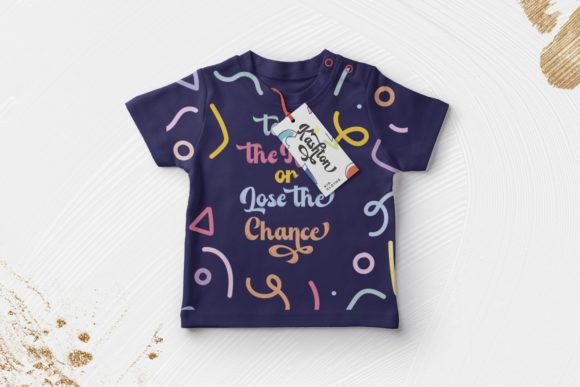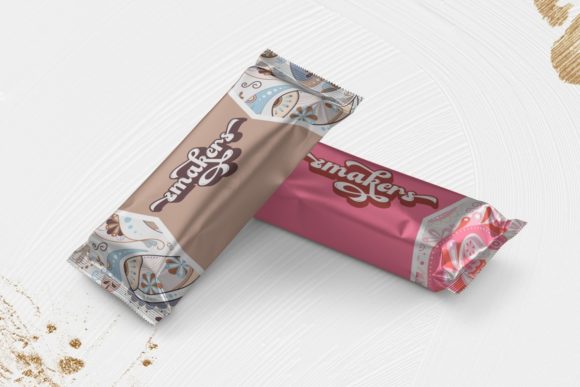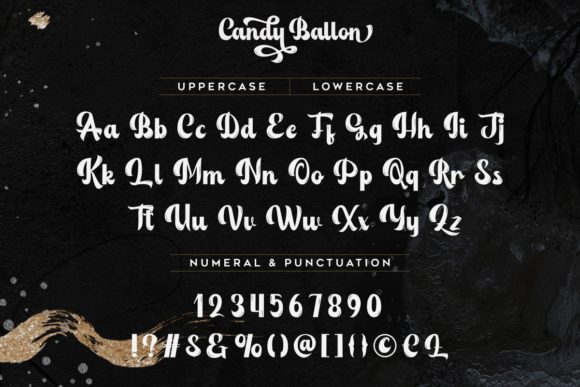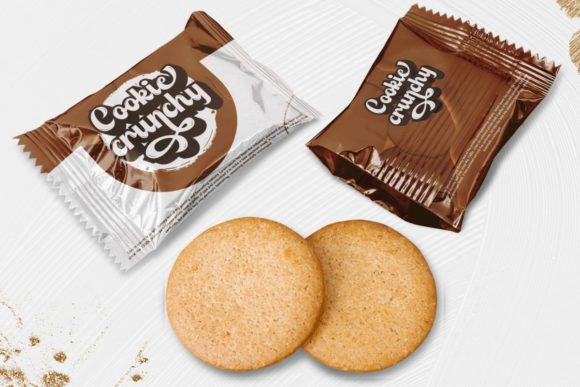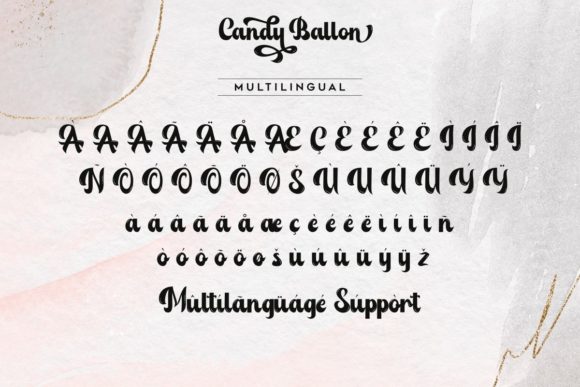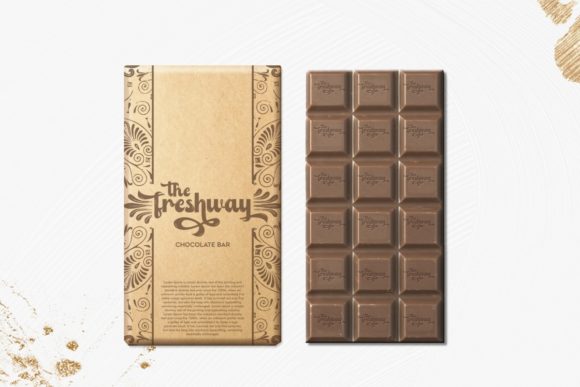
Candy Ballon Font: Elevate Your Designs with a Stylish and Unique Handwritten Font
Are you tired of using the same old fonts in your designs? Do you want to add a touch of elegance and whimsy to your projects? Look no further than the Candy Ballon Font, a stylish, distinct, and uniquely designed handwritten font that’s sure to take your designs to the next level.
What Makes Candy Ballon Font So Special?
Candy Ballon Font is a one-of-a-kind handwritten font that’s been carefully crafted to provide a fresh and exciting alternative to traditional fonts. Its unique design features flowing lines, intricate swashes, and a playful charm that’s sure to capture the attention of your audience.
One of the standout features of Candy Ballon Font is its PUA (Private Use Area) encoding. This means that you can access all of the glyphs and swashes with ease, giving you complete creative control over your designs. Whether you’re a designer, crafter, or DIY enthusiast, Candy Ballon Font is the perfect choice for anyone looking to add a personal touch to their projects.
Key Features of Candy Ballon Font
- Stylish and Unique Design: Candy Ballon Font features a stylish and unique handwritten design that’s sure to make your projects stand out.
- PUA Encoded: With PUA encoding, you can access all of the glyphs and swashes with ease, giving you complete creative control over your designs.
- High-Quality Design: The font has been carefully crafted to provide a high-quality design that’s perfect for printing and digital use.
Candy Ballon Font is perfect for designers and crafters who want to add a personal touch to their projects. Whether you’re creating invitations, greeting cards, or social media graphics, this font is sure to elevate your designs and make them stand out.
Here are just a few examples of how you can use Candy Ballon Font in your designs:
- Invitations and Greeting Cards: Add a touch of elegance and whimsy to your invitations and greeting cards with Candy Ballon Font.
- Social Media Graphics: Use Candy Ballon Font to create eye-catching social media graphics that are sure to grab the attention of your audience.
- Branding and Packaging: Add a personal touch to your branding and packaging with Candy Ballon Font.
- Crafting and DIY Projects: Use Candy Ballon Font to add a personal touch to your crafting and DIY projects, such as scrapbooking and journaling.
Why Choose Candy Ballon Font?
With so many fonts to choose from, why should you choose Candy Ballon Font? Here are just a few reasons:
- Unique Design: Candy Ballon Font features a unique design that’s sure to make your projects stand out.
- High-Quality Design: The font has been carefully crafted to provide a high-quality design that’s perfect for printing and digital use.
- PUA Encoded: With PUA encoding, you can access all of the glyphs and swashes with ease, giving you complete creative control over your designs.